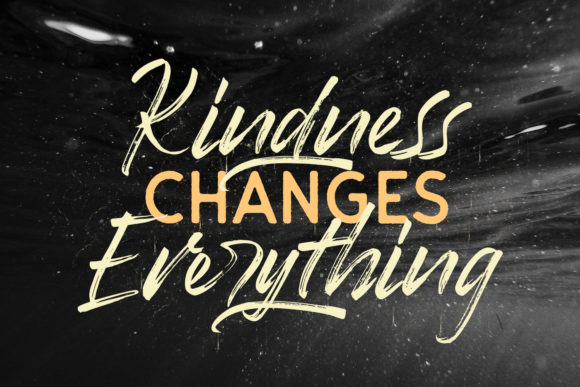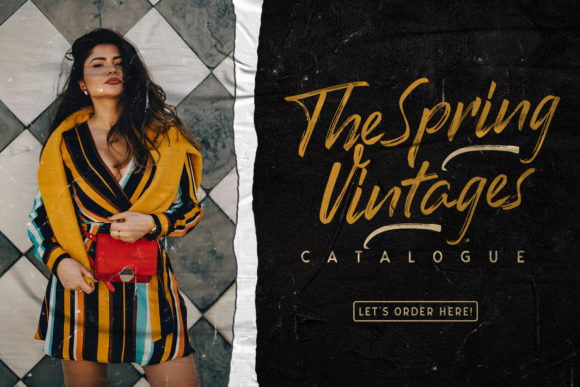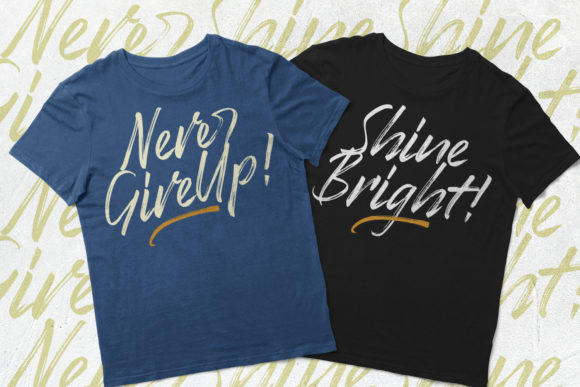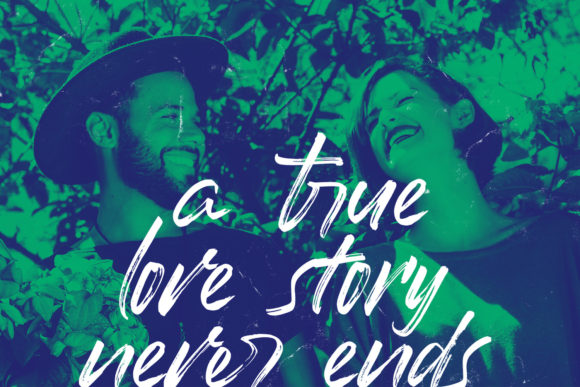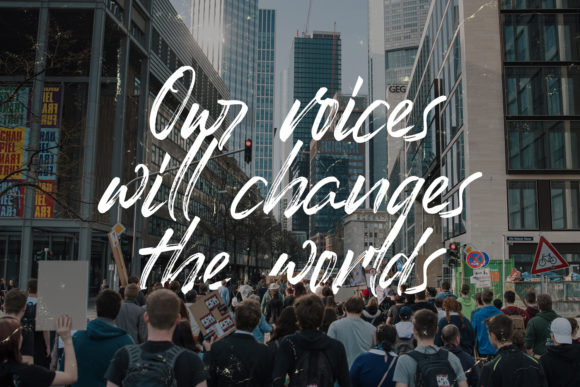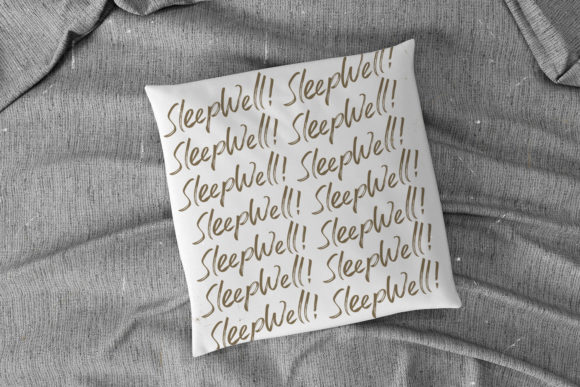
Introduction to Romantika Hidup Font Font
Fonts play a crucial role in design, and the Romantika Hidup Font font is a typeface that brings both character and versatility to any project. Whether you’re working on a branding project, a website, or a print design, the Romantika Hidup Font font offers a unique style that can elevate your work.
Romantika Hidup is a flowing and elegant handwritten font, created with the help of a brush pen.
Get inspired by its unique and beautiful style and add it to your favorite designs .
Key Features of Romantika Hidup Font Font
Why Choose Romantika Hidup Font Font?
The Romantika Hidup Font font is more than just a typeface – it’s a design tool that helps you communicate your message with style and clarity. Its unique character set and versatile design make it suitable for a wide range of applications, from elegant invitations to bold headlines.
With its carefully crafted letterforms and balanced proportions, the Romantika Hidup Font font ensures readability and visual appeal across all mediums.
What makes Romantika Hidup Font font special?
The Romantika Hidup Font font stands out with its unique design, exceptional readability, and versatility across various design applications.